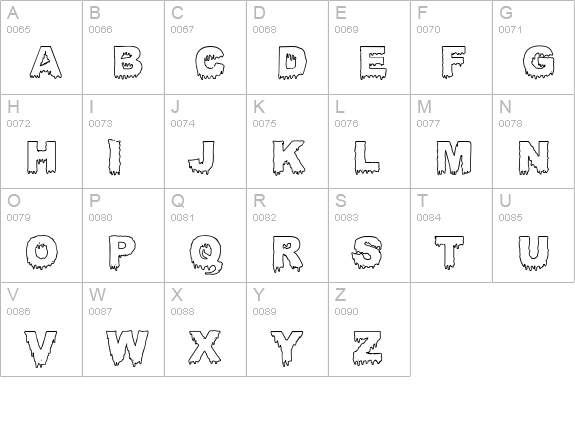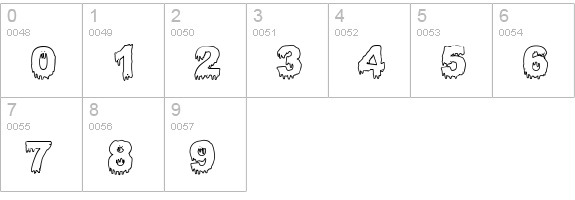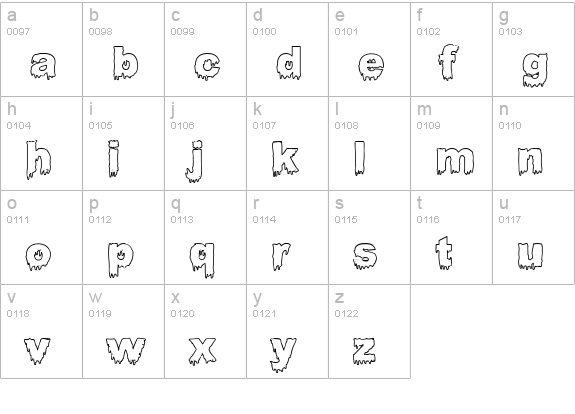
Bloody Stump Gutted Font Details
Introducing Bloody Stump Gutted font, an edgy and daring typeface designed to make a bold statement in your projects. This font exudes a raw and rugged vibe with its distressed and gutted appearance, perfect for adding a touch of grunge and attitude to your designs. Featuring jagged edges and irregular shapes, Bloody Stump Gutted font captures a sense of rebelliousness and intensity that will surely grab attention. Whether you're working on a horror-themed project, a rock band poster, or a tattoo design, this font will add a unique and striking element to your work. Best of all, Bloody Stump Gutted font is available for free download at FontsMarket.com, making it easily accessible for all your creative endeavors. Embrace the dark and gritty aesthetic of this font and let your imagination run wild with the endless possibilities it offers. Download now and unleash the power of Bloody Stump Gutted font in your next project!